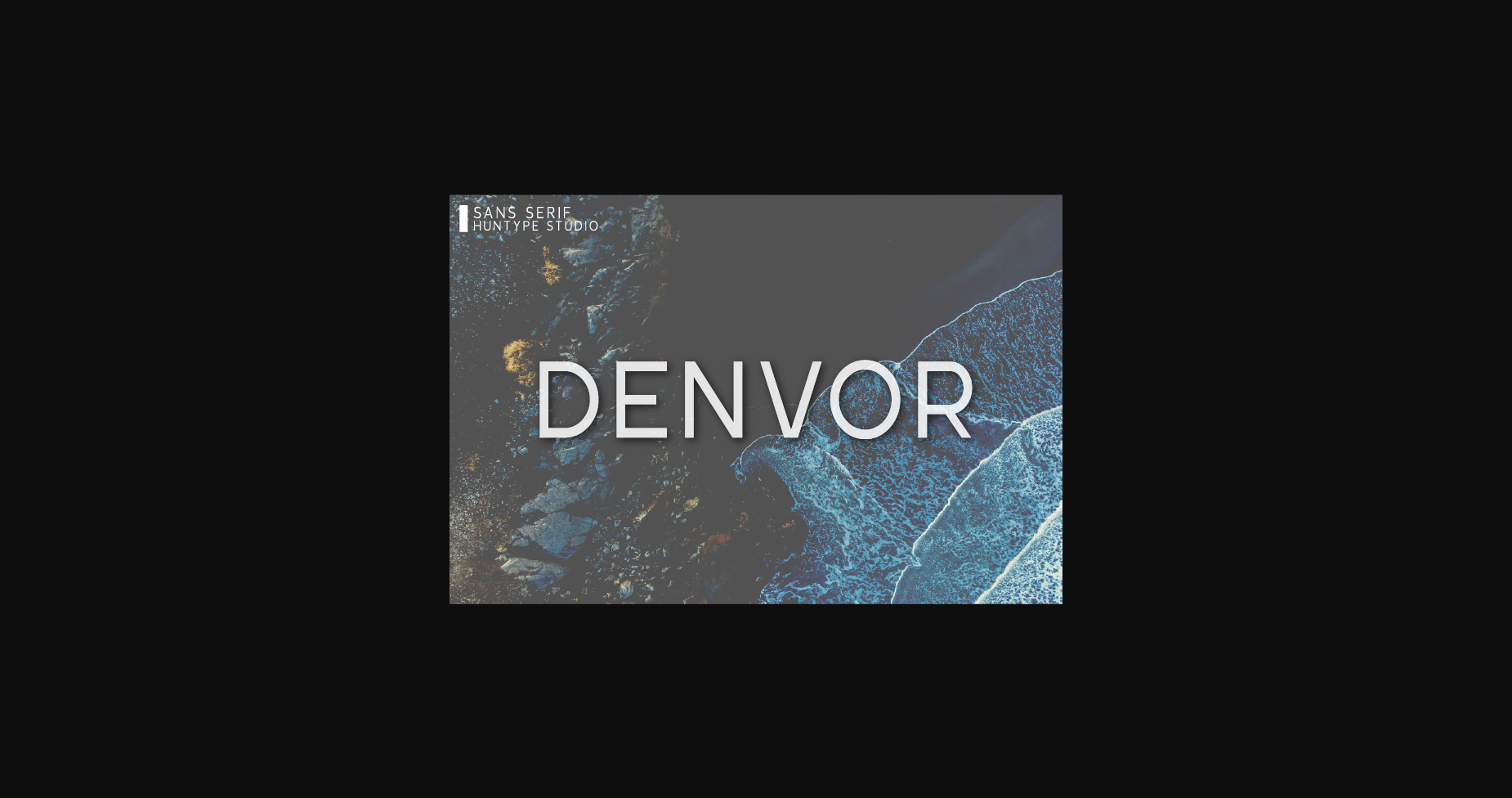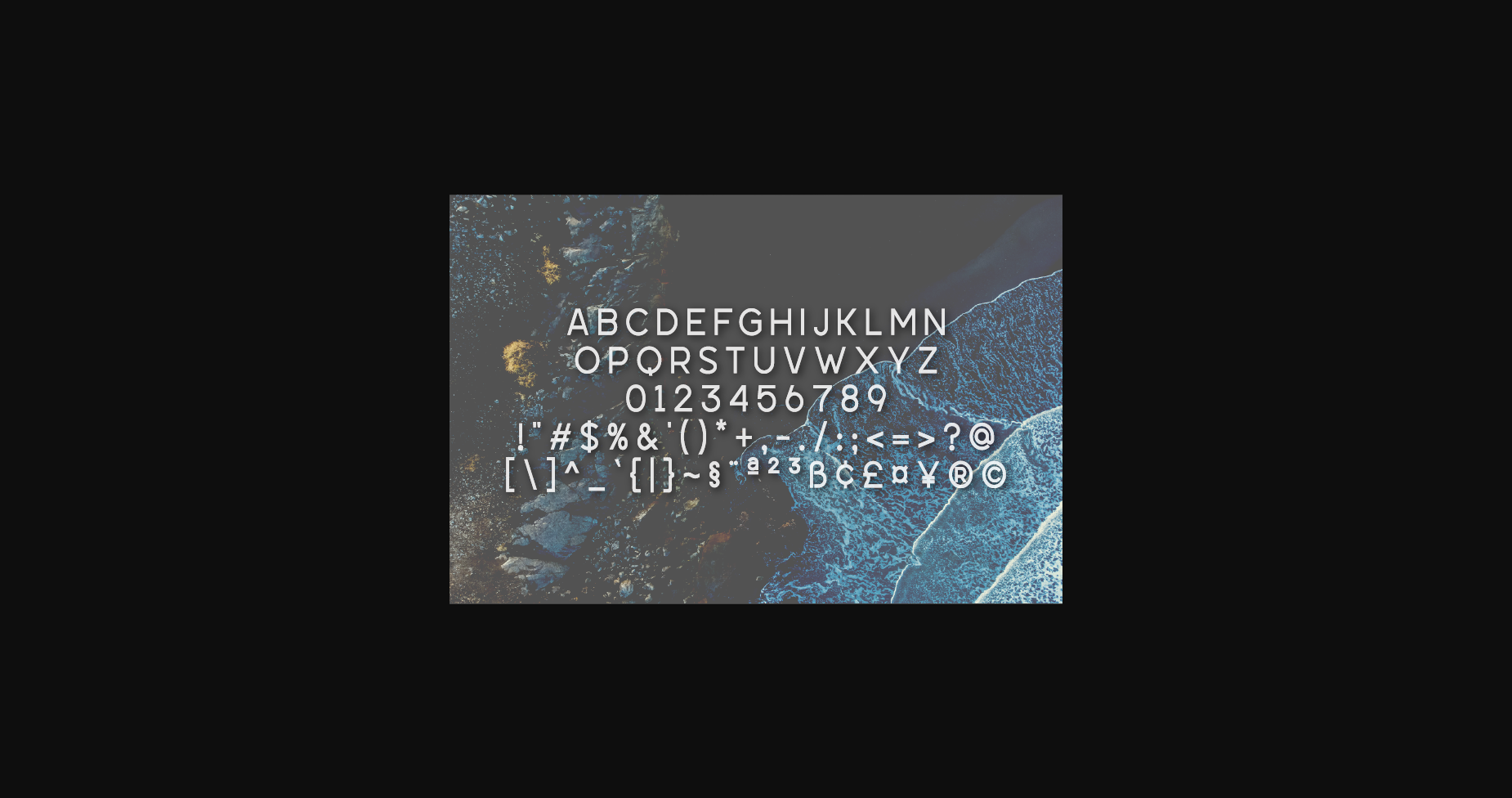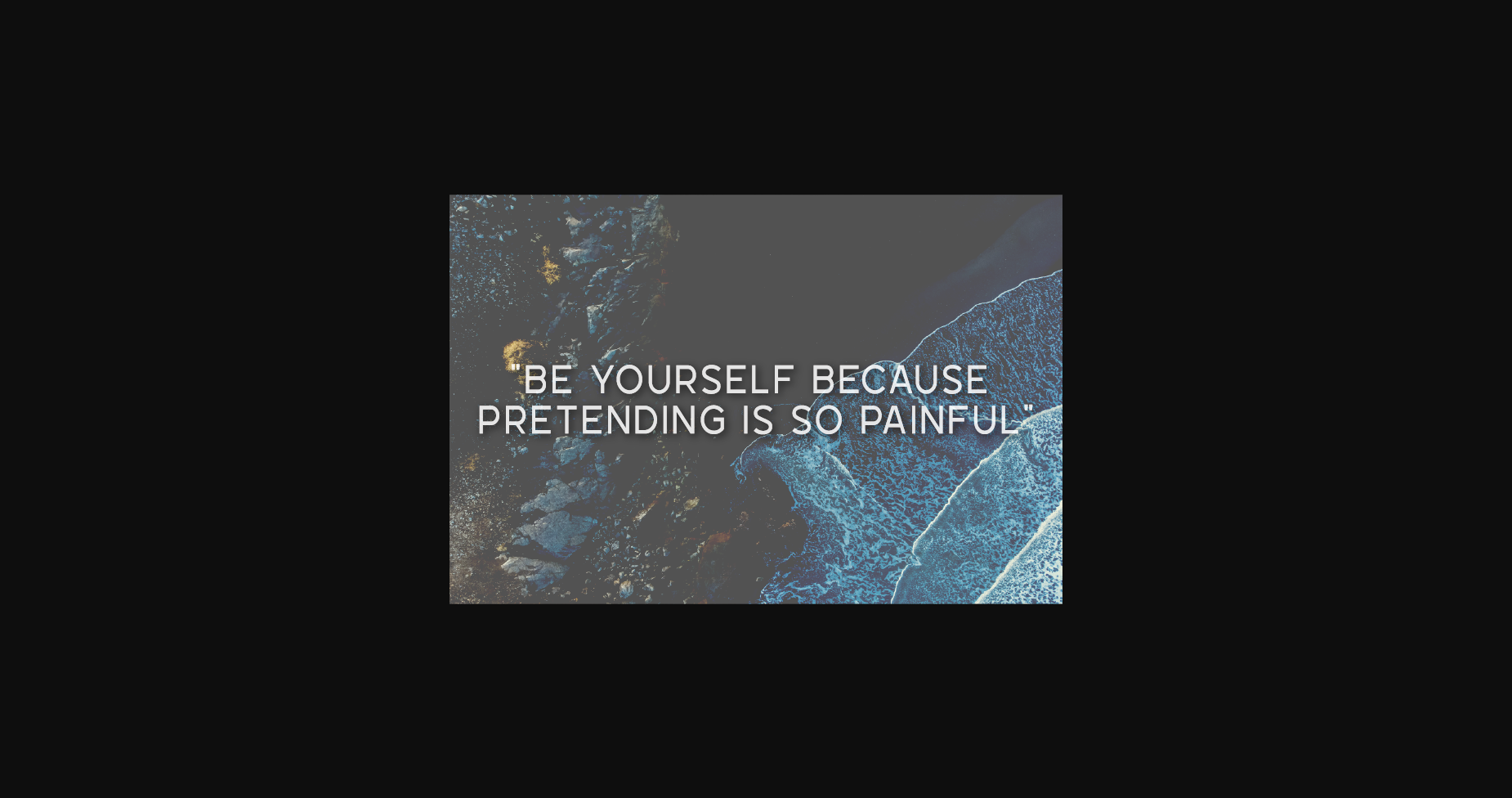
About Denvor Font
Denvor is a clean and simple lettered sans serif font. No matter the topic, this font will be an incredible asset to your fonts’ library, as it has the potential to elevate any creation.